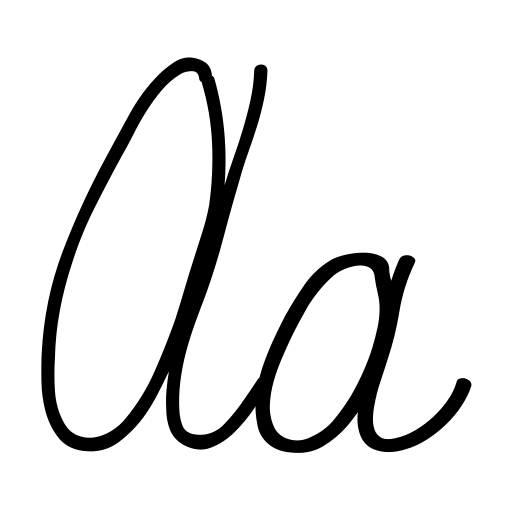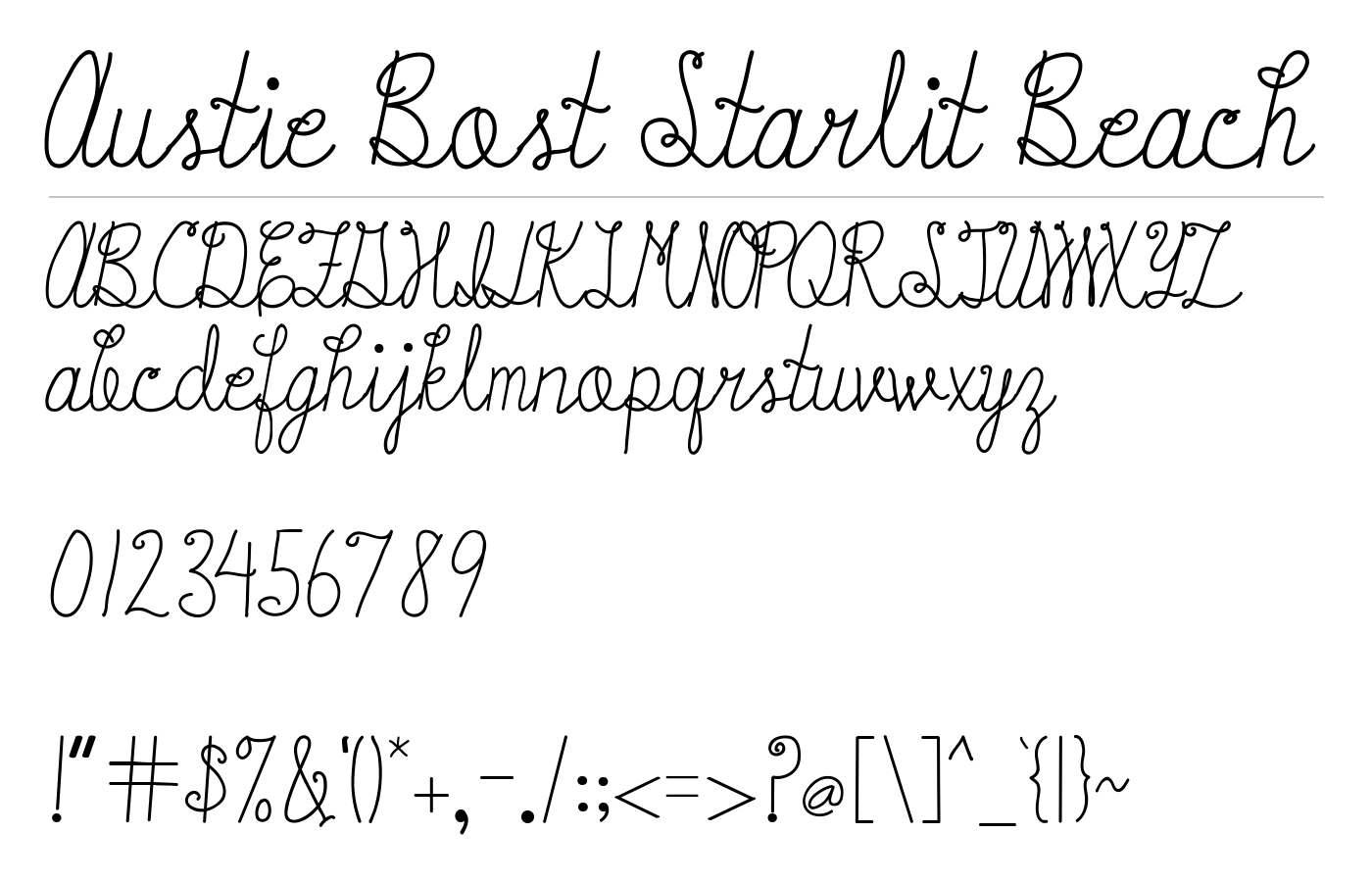
Austie Bost Starlit Beach is a whimsical, delicate script font with tall, narrow letterforms and playful loops that create a charming, hand-drawn feel. Its light weight and airy structure make it perfect for invitations, branding, or designs seeking a personal, artistic touch with a breezy, elegant vibe. This font works best in creative, casual projects where a unique, friendly style is desired.
Austie Bost Starlit Beach Font
About Austie Bost Starlit Beach Font